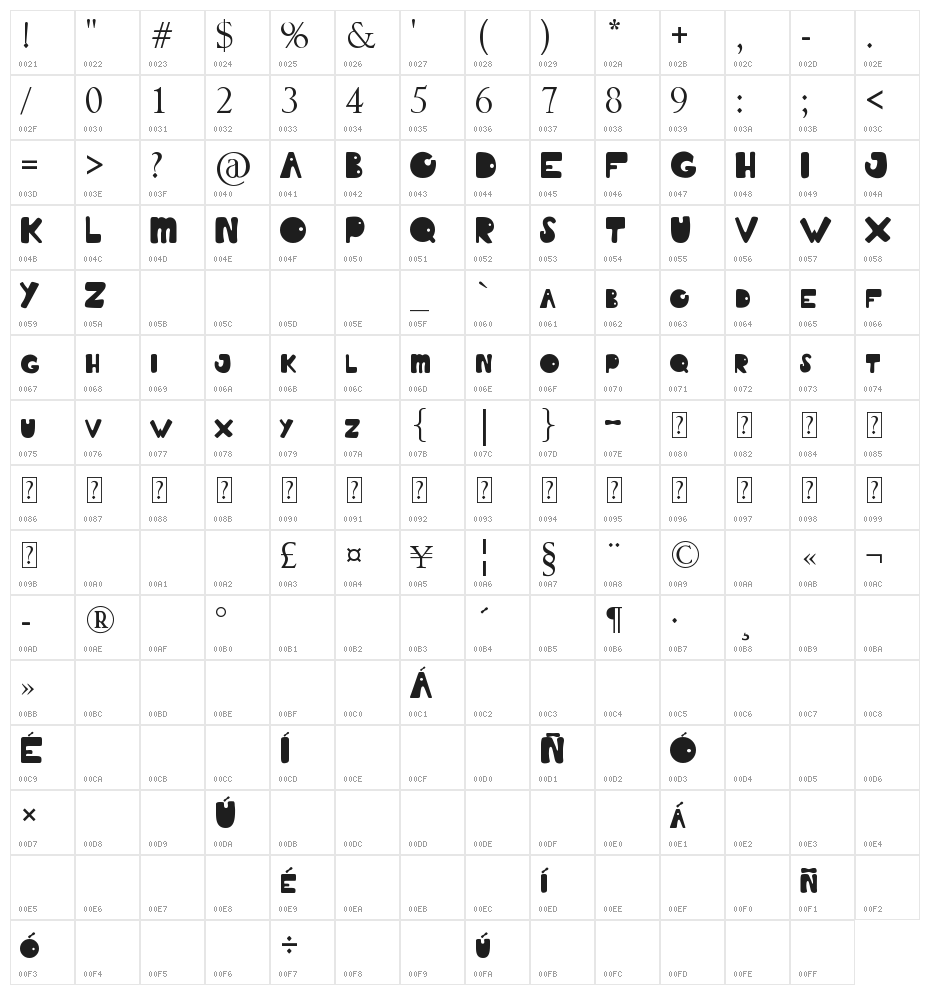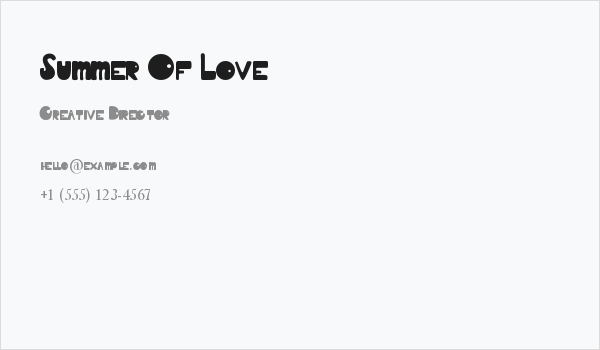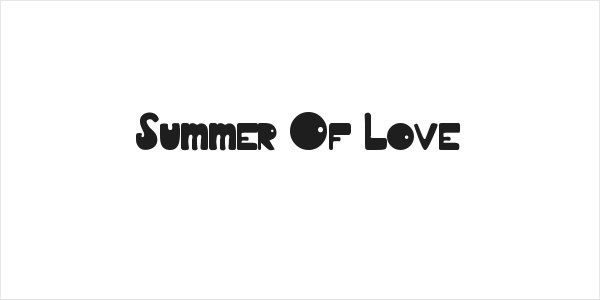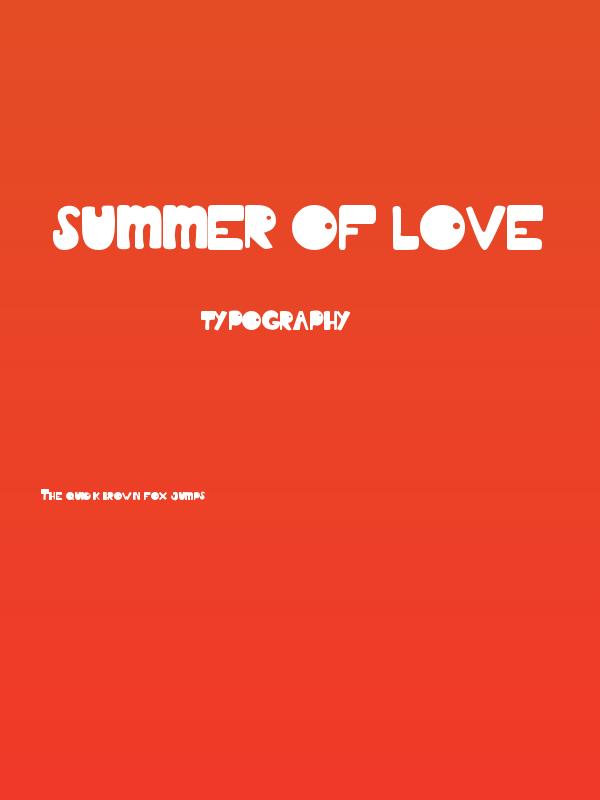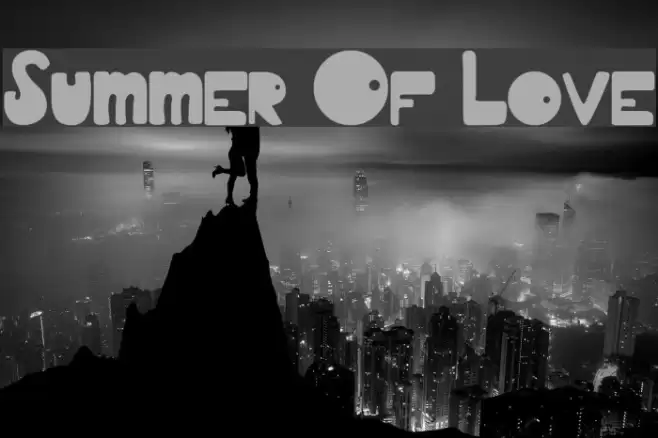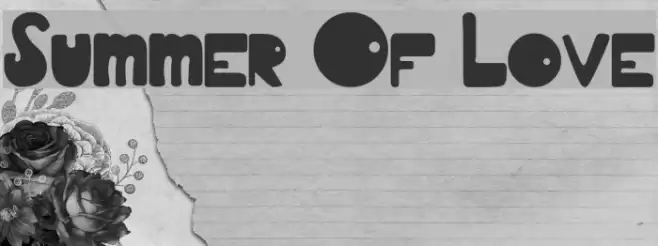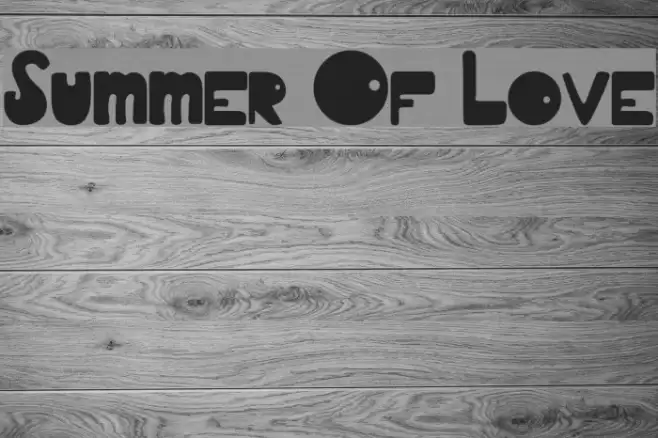
Summer Of Love Font
This font exudes a playful and retro vibe, reminiscent of the 1960s and 70s design aesthetics. The characters are bold and rounded, with a whimsical touch that adds a sense of fun and nostalgia. The uppercase letters are particularly distinctive, featuring unique cutouts and curves that give them a lively appearance. The lowercase letters maintain the same playful style, ensuring consistency throughout the typeface. The numerals are clear and easy to read, while the special characters complement the overall design with their quirky shapes. This font is perfect for projects that aim to capture a vintage or retro feel, making it ideal for posters, album covers, and other creative designs.
| Proposed Projects | Ideal for retro-themed posters, album covers, event flyers, and creative branding projects. |
| Author | Fonts by Måns Grebäck |